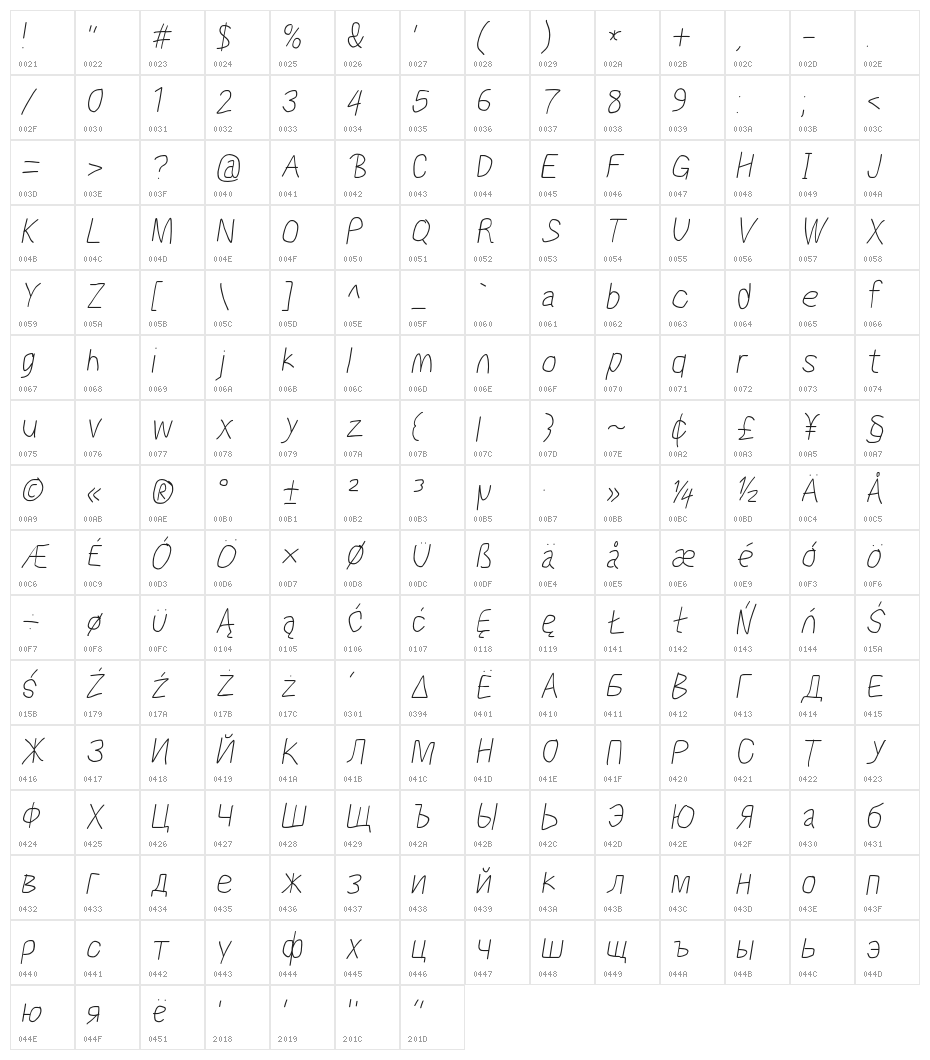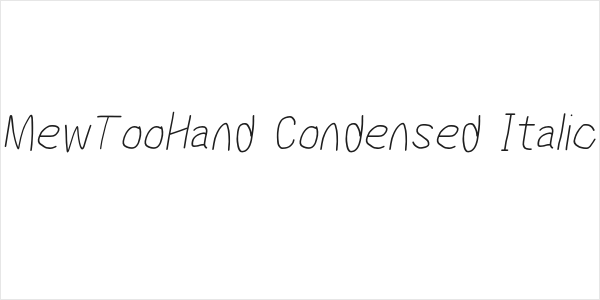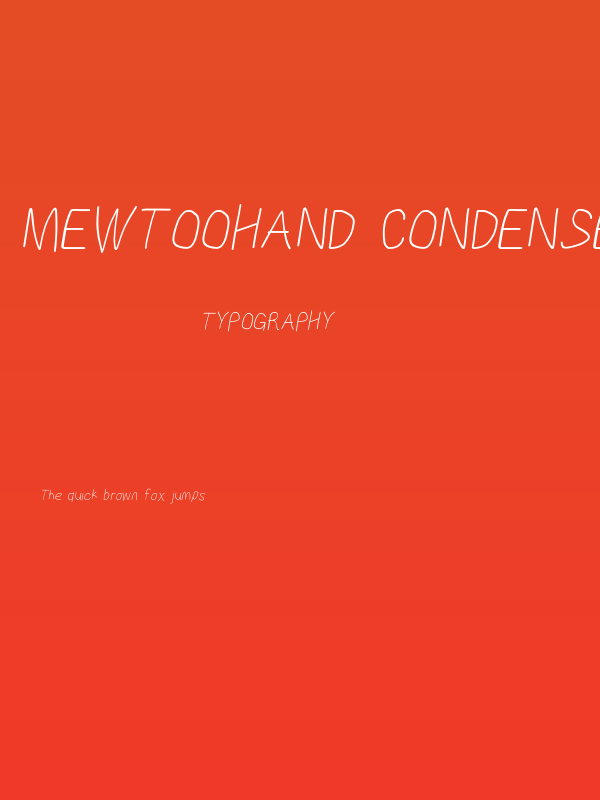
MewTooHand Condensed Italic Font
MewTooHand Condensed Italic Description
This font features a playful and casual handwritten style with a condensed and italicized form. The letters are slightly slanted, giving a dynamic and informal appearance. The strokes are consistent in width, providing a uniform look across characters. The uppercase and lowercase letters maintain a cohesive style, with rounded edges and a smooth flow. Numbers and special characters are designed to match the overall aesthetic, ensuring versatility in various applications. The font's informal yet clear design makes it suitable for creative projects.
| Proposed Projects | Ideal for greeting cards, invitations, casual branding, and creative projects. |